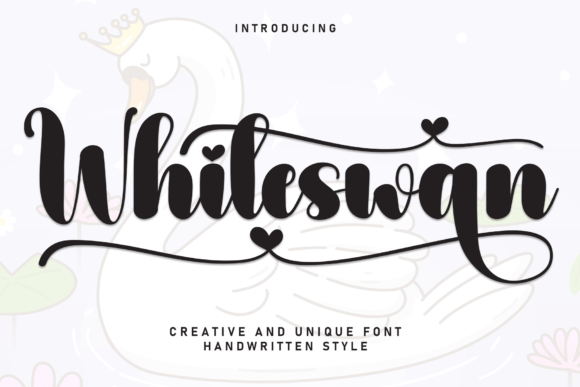
Introducing Whiteswan Font, the enchanting script font that will effortlessly elevate your design creations, transforming them into captivating works of art. This stunning handwritten font exudes warmth and charm, adding a touch of elegance and sophistication to your projects.
With its flowing curves and delicate strokes, Whiteswan Font is reminiscent of a gentle breeze, inviting readers to embark on a journey of whimsical imagination. Its soft edges and subtle variations in thickness create a sense of authenticity and add depth to your designs.
Whether you're crafting wedding invitations, heartfelt cards, or any design that calls for a touch of heartfelt charm, Whiteswan Font is the perfect choice. Its graceful strokes evoke a sense of nostalgia and romance, making it ideal for projects that aim to capture the essence of life's special moments.
Unlock your creativity and let Whiteswan Font guide you into a world of endless possibilities. This versatile font lends itself beautifully to a wide range of design styles, from classic and traditional to modern and contemporary. Experiment with different colors and textures to create designs that resonate with your unique vision.
Join the ranks of discerning designers who have discovered the magic of Whiteswan Font. Let its enchanting beauty captivate your audience and leave a lasting impression. Whether you're a seasoned professional or just starting your design journey, Whiteswan Font is the perfect companion to elevate your work to new heights.